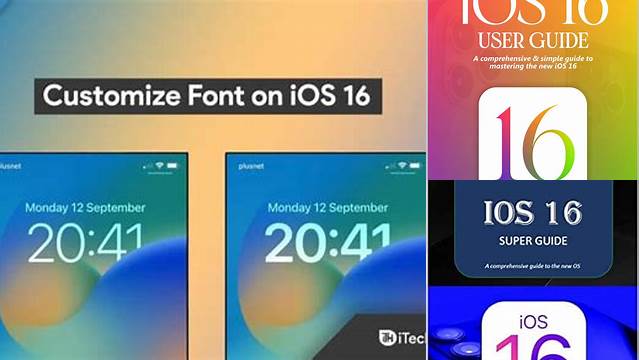
IOS 16 Fonts: Customize Your IPhone's Text
Hey guys! Ever wondered how to jazz up your iPhone's look? One of the coolest ways is by tweaking the fonts. With iOS 16, Apple gave us even more control over our devices, including some neat font options. So, let's dive into the world of fonts for iOS 16 and see how you can make your iPhone truly yours! This guide will cover everything from system-wide changes to app-specific customizations, ensuring you know all the tricks to personalize your font experience. Get ready to unleash your inner designer!
Changing the System Font on iOS 16
Unfortunately, iOS 16 doesn't offer a direct, built-in way to change the system-wide font like you can on Android. Bummer, right? But don't lose hope! There are still some workarounds and settings that influence the overall look and feel of text across your device. We'll explore these options so you can make the most of what Apple gives us. The fonts for iOS 16, while limited in direct system-wide customization, can still be altered in various ways. For example, you can adjust the text size and boldness, which affects readability and visual appeal. To access these settings, go to Settings > Accessibility > Display & Text Size. Here, you'll find options to make text bolder, increase contrast, reduce transparency, and even adjust the color filters. These settings, while not changing the font type itself, significantly impact how text appears throughout your iOS 16 experience. By experimenting with these accessibility features, you can create a more comfortable and visually appealing environment tailored to your preferences. Remember, while a complete font overhaul isn't possible without jailbreaking, these tweaks offer a surprising amount of customization. Let’s explore more options below to enhance your font experience on iOS 16.
Adjusting Text Size and Boldness
One of the easiest ways to improve readability and change the appearance of fonts for iOS 16 is by adjusting the text size and boldness. Apple provides straightforward settings to make these tweaks. To access these settings, navigate to Settings > Display & Brightness > Text Size. Here, you'll find a slider that allows you to increase or decrease the text size according to your preference. This is particularly useful for those who find the default text size too small or too large. Additionally, you can enable the Bold Text option by going to Settings > Accessibility > Display & Text Size and toggling the “Bold Text” switch. This will make all the text on your device appear bolder, which can significantly improve readability, especially for individuals with visual impairments. Experimenting with these settings can greatly enhance your overall user experience. The combination of adjusted text size and boldness can make reading articles, browsing the web, and using apps much more comfortable. It’s a simple yet effective way to personalize your device and make it more accessible. Remember, these settings apply system-wide, so you'll see the changes in most apps and menus. By fine-tuning these options, you can optimize the fonts for iOS 16 to suit your specific needs and preferences. Don’t hesitate to play around with different combinations to find what works best for you!
Using Accessibility Features for Better Readability
Apple's accessibility features are a goldmine for customizing how fonts for iOS 16 appear on your device. These features aren't just for users with disabilities; they can benefit anyone looking to improve readability and visual comfort. One particularly useful feature is Reduce Transparency, found under Settings > Accessibility > Display & Text Size. Enabling this option reduces the transparency and blur effects, making text and UI elements more distinct and easier to read. Another great tool is Increase Contrast, which enhances the color contrast between text and background. This can be especially helpful in apps with poor color schemes or low contrast ratios. Furthermore, you can explore Color Filters to adjust the color palette of your screen. This can be beneficial for individuals with color blindness or those who find certain colors straining on their eyes. To access Color Filters, go to Settings > Accessibility > Display & Text Size > Color Filters. Here, you can choose from various preset filters or create a custom filter to suit your specific needs. These accessibility features offer a surprising degree of control over how fonts for iOS 16 are displayed, allowing you to create a more comfortable and accessible user experience. By experimenting with these settings, you can significantly improve readability and reduce eye strain. Remember, the goal is to find a configuration that works best for you, so don't be afraid to try different combinations and settings. Customizing these options will make using your iPhone a lot easier and more enjoyable.
Exploring App-Specific Font Settings
While system-wide font changes are limited, many apps offer their own font settings, giving you more control over the text you see within those apps. This is where you can really personalize your reading experience. For example, apps like Kindle, iBooks, and many news readers allow you to change the font type, size, and even the background color. To find these settings, look for an “Appearance” or “Reading Settings” section within the app's menu. In these settings, you'll often find a variety of font options to choose from, including popular fonts like Times New Roman, Arial, and more specialized fonts designed for readability. You can also adjust the line spacing, margins, and other formatting options to create a comfortable reading environment. This is a great way to optimize the fonts for iOS 16 within your favorite apps. By taking advantage of these app-specific settings, you can customize the text to your liking and make reading a more enjoyable experience. Remember, each app is different, so the location of these settings may vary. But with a little exploration, you can usually find them without too much trouble. Don’t underestimate the power of these in-app settings; they can significantly enhance your overall user experience. Keep an eye out for apps that offer extensive font customization options, as they provide the most flexibility in tailoring the text to your preferences. Customizing fonts for iOS 16 this way ensures your reading pleasure.
Using Third-Party Apps for Font Customization (Caveats)
Okay, so here's the deal: While iOS is pretty locked down, some third-party apps claim to offer font customization. However, it's crucial to proceed with caution. Many of these apps require you to install custom keyboards or use other workarounds that can compromise your security and privacy. Plus, they often don't work as advertised, leading to frustration and wasted time. It's essential to read reviews and do your research before installing any third-party app that promises to change fonts for iOS 16. Be wary of apps that ask for excessive permissions or have a history of security vulnerabilities. In most cases, the limited customization options offered by these apps aren't worth the risk. Instead, focus on the built-in accessibility features and app-specific settings we discussed earlier. These options are safer, more reliable, and often provide a better overall experience. While the temptation to completely overhaul your system font may be strong, it's important to prioritize your security and privacy. Stick to trusted sources and avoid apps that seem too good to be true. Remember, Apple designed iOS to be secure and stable, and tampering with the system can lead to unexpected issues. Therefore, exercise caution and make informed decisions when considering third-party font customization apps. Always prioritize your safety when altering fonts for iOS 16.
Jailbreaking and Font Customization: Is It Worth It?
Jailbreaking your iPhone gives you complete control over your device, including the ability to change the system-wide font. However, it comes with significant risks. Jailbreaking voids your warranty, makes your device more vulnerable to malware, and can cause instability and other issues. Plus, it's a complex process that requires technical expertise. While the idea of completely customizing fonts for iOS 16 might be tempting, it's generally not worth the risks associated with jailbreaking. The potential downsides far outweigh the benefits, especially considering the alternative customization options available through accessibility features and app-specific settings. Unless you're a very experienced user who understands the risks involved, it's best to avoid jailbreaking your iPhone. There are simply too many potential problems that can arise, and you could end up bricking your device. Instead, focus on the safe and supported methods of customizing your font experience. Apple has made significant improvements to accessibility features in recent years, providing a range of options for improving readability and visual comfort. These features, combined with app-specific font settings, offer a reasonable level of customization without compromising your device's security or stability. Remember, the goal is to enjoy your iPhone without putting it at risk. Considering the consequences of jailbreaking when altering fonts for iOS 16 is crucial.
Best Font Choices for Readability on iOS 16
When it comes to choosing fonts for iOS 16 within apps that allow customization, readability should be your top priority. Some fonts are simply better suited for reading long blocks of text than others. Generally, sans-serif fonts like Helvetica, Arial, and Open Sans are considered highly readable due to their clean and simple design. Serif fonts like Times New Roman and Georgia can also be good choices, but they may not be as easy to read on smaller screens. Experiment with different fonts to see what works best for you. Consider factors like x-height (the height of lowercase letters), kerning (the spacing between letters), and leading (the spacing between lines). A font with a larger x-height, generous kerning, and ample leading will generally be more readable. Also, pay attention to the font's weight (boldness). A slightly bolder font can be easier to read, especially for individuals with visual impairments. Ultimately, the best font choice is a matter of personal preference. What works well for one person may not work as well for another. So, don't be afraid to try different fonts and experiment with various settings until you find a combination that suits your needs. The right font can make a big difference in your reading experience, so it's worth taking the time to find one that you love. Remember, prioritizing readability ensures that altering fonts for iOS 16 enhances your experience.
How Font Size Affects User Experience
The size of the fonts for iOS 16 significantly impacts user experience. Too small, and you'll strain your eyes; too large, and you'll see less content on the screen, requiring more scrolling. Finding the right balance is key. Apple provides a convenient text size slider in Settings > Display & Brightness > Text Size, allowing you to adjust the text size to your liking. Consider your screen size and viewing distance when choosing a font size. On smaller iPhones, a slightly smaller font size may be necessary to maximize the amount of content you can see. On larger iPhones or iPads, you may be able to comfortably use a larger font size. Also, think about the apps you use most often. Some apps may display text differently, so you may need to adjust the font size accordingly. For example, you might prefer a slightly larger font size in your email app than in your news reader app. Remember, the goal is to find a font size that is comfortable and easy to read without sacrificing too much screen real estate. Experiment with different sizes and see what works best for you in various apps and scenarios. Don’t hesitate to tweak the settings until you find the perfect balance. Remember, optimizing user experience means carefully considering fonts for iOS 16.
Font Weight and Its Impact on Readability
Font weight, or the thickness of the fonts for iOS 16, plays a crucial role in readability. A font that is too light can be difficult to read, especially for individuals with visual impairments or in low-light conditions. Conversely, a font that is too bold can appear heavy and overwhelming. Finding the right font weight is essential for creating a comfortable reading experience. Apple provides a Bold Text option in Settings > Accessibility > Display & Text Size, allowing you to make all the text on your device bolder. This can be a helpful option for those who find the default font weight too light. However, keep in mind that enabling Bold Text will affect all the text on your device, so it may not be suitable for everyone. Within apps that offer font customization, you may also find options to adjust the font weight. Experiment with different weights to see what works best for you. A slightly bolder font weight can improve readability without making the text appear too heavy. Pay attention to how the font weight interacts with the font size and other settings. A larger font size may require a slightly lighter font weight to maintain readability. Similarly, a smaller font size may benefit from a slightly bolder font weight. Remember, the goal is to find a combination that is comfortable and easy to read for extended periods. Careful consideration of font weight ensures optimal readability when considering fonts for iOS 16.
Line Spacing and Readability Considerations
Line spacing, also known as leading, is the vertical space between lines of text. It's a critical factor in readability, especially for long blocks of text. Insufficient line spacing can make text appear cramped and difficult to read, while excessive line spacing can make it harder to follow the flow of the text. Optimal line spacing allows the eye to easily move from one line to the next without feeling strained or lost. Unfortunately, iOS doesn't offer a system-wide setting to adjust line spacing. However, many apps, particularly those designed for reading, provide line spacing options within their settings. Look for these options in apps like Kindle, iBooks, and news readers. The ideal line spacing depends on the font size, font weight, and font type. Generally, larger font sizes require more line spacing, while smaller font sizes may benefit from less line spacing. Similarly, bolder fonts may require more line spacing to prevent the text from appearing too dense. Experiment with different line spacing values to see what works best for you. A good starting point is to set the line spacing to around 1.5 times the font size. Adjust from there until you find a setting that is comfortable and easy to read. Paying attention to line spacing ensures that the fonts for iOS 16 are easy on the eyes.
Kerning and Letter Spacing: Fine-Tuning Text Appearance
Kerning and letter spacing refer to the horizontal space between individual letters and characters in text. These subtle adjustments can significantly impact the overall appearance and readability of fonts for iOS 16. Kerning specifically addresses the space between certain letter pairs that can appear too close or too far apart due to their shapes (e.g., AV, WA). Letter spacing, on the other hand, adjusts the spacing uniformly between all letters in a word or phrase. While iOS doesn't offer system-wide controls for kerning or letter spacing, some advanced text editors and design apps may provide these options. For most users, the default kerning and letter spacing settings in iOS are sufficient. However, if you're working with typography for graphic design or other specialized purposes, you may need to use third-party apps to fine-tune these settings. Keep in mind that excessive adjustments to kerning or letter spacing can negatively impact readability. Too little space between letters can make the text appear cramped and difficult to decipher, while too much space can make the text look disjointed and unprofessional. Use these settings sparingly and only when necessary to address specific issues with the appearance of the text. If you're unsure about how to adjust kerning or letter spacing, it's best to consult with a professional designer or typographer. They can provide guidance and help you achieve the desired look without compromising readability. Optimizing text appearance requires attention to detail when choosing fonts for iOS 16.
Color Contrast and Its Impact on Text Visibility
Color contrast refers to the difference in brightness between the text and the background. It's a crucial factor in text visibility and readability, especially for individuals with visual impairments or in challenging lighting conditions. Insufficient color contrast can make text difficult or impossible to read, while excessive color contrast can cause eye strain and fatigue. Apple provides several accessibility features to adjust color contrast on iOS. The Increase Contrast option in Settings > Accessibility > Display & Text Size enhances the color contrast between text and background, making text more distinct. The Invert Colors option reverses the colors on the screen, which can be helpful for reading in low-light conditions. You can also use Color Filters to adjust the color palette of your screen. This can be beneficial for individuals with color blindness or those who find certain colors straining on their eyes. When choosing colors for text and background, aim for a high level of contrast. A good rule of thumb is to use a dark text color on a light background or vice versa. Avoid using colors that are too similar in brightness, such as light gray text on a white background. Test your color choices in different lighting conditions and on different devices to ensure that the text remains legible. Pay special attention to color contrast when designing websites or apps. Make sure that the text is easily readable on all devices and in all lighting conditions. Proper color contrast significantly enhances visibility when selecting fonts for iOS 16.
Night Mode and Its Influence on Font Perception
Night Mode, also known as Dark Mode, reverses the color scheme of your device, displaying light text on a dark background. This can reduce eye strain in low-light conditions and improve sleep quality. However, Night Mode can also affect how you perceive fonts for iOS 16. Some fonts may appear more readable in Night Mode than others. Generally, sans-serif fonts with a slightly bolder weight tend to work well in Night Mode. Avoid using fonts that are too thin or too light, as they may become difficult to read against a dark background. Pay attention to the color contrast between the text and the background in Night Mode. Make sure that the text is easily readable and doesn't blend in with the background. You may need to adjust the text color or background color to achieve optimal contrast. Experiment with different font settings and color combinations in Night Mode to see what works best for you. Consider the types of content you typically view in Night Mode. If you're primarily reading long blocks of text, choose a font that is comfortable and easy to read for extended periods. If you're primarily browsing websites or using apps with a lot of graphics, you may be able to get away with a more decorative font. Remember, the goal is to create a visual environment that is comfortable and easy on your eyes, especially in low-light conditions. Carefully considering font choices in Night Mode will optimize the viewing experience when choosing fonts for iOS 16.
Font Anti-Aliasing and Its Role in Smooth Text Rendering
Font anti-aliasing is a technique used to smooth the edges of fonts for iOS 16, making them appear less jagged and more visually appealing. It works by adding slightly blurred pixels around the edges of the characters, which creates the illusion of smoother curves and lines. iOS automatically applies font anti-aliasing to all text on the screen. However, the effectiveness of anti-aliasing can depend on the font size, font type, and screen resolution. At smaller font sizes, anti-aliasing can sometimes make text appear slightly blurry or less sharp. This is because the blurred pixels can interfere with the clarity of the characters. At larger font sizes, anti-aliasing is generally more effective at smoothing the edges of the text without sacrificing clarity. Some fonts are designed specifically to take advantage of anti-aliasing. These fonts typically have smooth, rounded edges and are optimized for display on digital screens. When choosing fonts, consider how well they will render with anti-aliasing enabled. Avoid using fonts that have sharp, angular edges or that appear pixelated at small sizes. Experiment with different font settings and screen resolutions to see how anti-aliasing affects the appearance of the text. If you find that anti-aliasing is making the text appear blurry, you may be able to disable it in some apps or operating systems. However, keep in mind that disabling anti-aliasing can make the text appear more jagged and less visually appealing. Overall, font anti-aliasing plays an important role in creating smooth and readable text on digital screens. Understanding how it works and how it affects different fonts can help you choose the best fonts for your needs. Smooth text rendering is crucial when considering fonts for iOS 16.
System-Wide Font Changes via Configuration Profiles (Advanced)
While iOS doesn't offer a direct setting to change the system-wide font, there are some advanced techniques that can be used to achieve this, such as using configuration profiles. However, this method is complex and not recommended for average users. Configuration profiles are typically used by businesses and organizations to manage device settings and configurations. They can be used to install custom fonts on iOS devices, but this requires creating and installing a profile that is specifically designed for this purpose. Creating a configuration profile requires technical expertise and specialized software. You'll need to use a tool like Apple Configurator or a third-party profile editor to create the profile and then install it on your device. Installing a configuration profile from an untrusted source can pose security risks. Make sure that you only install profiles from trusted sources, such as your employer or a reputable organization. Even if you install a profile from a trusted source, it's important to understand what settings the profile is changing. A misconfigured profile can cause unexpected problems with your device. If you're not comfortable with the technical aspects of creating and installing configuration profiles, it's best to avoid this method of changing the system-wide font. Stick to the built-in accessibility features and app-specific font settings, which are safer and easier to use. Consider the complexity before attempting system-wide changes to fonts for iOS 16.
Using Custom Fonts in Apps with Font Picker Support
Some apps offer built-in font pickers that allow you to use custom fonts that you've installed on your device. This is a great way to personalize the appearance of the text within those apps. To use custom fonts in an app with font picker support, you'll first need to install the fonts on your device. There are several ways to do this, such as using a font management app or installing a configuration profile. Once the fonts are installed, open the app that you want to use them in and look for the font picker. The font picker is typically located in the app's settings or preferences. In the font picker, you should see a list of all the fonts that are installed on your device, including the custom fonts that you've added. Select the font that you want to use and apply the changes. Keep in mind that not all apps support custom fonts. If an app doesn't have a font picker, you won't be able to use custom fonts in that app. Also, some apps may only support certain font formats, such as TrueType (TTF) or OpenType (OTF). Make sure that the fonts you're using are compatible with the app. Using custom fonts can be a fun and creative way to personalize the appearance of your favorite apps. Experiment with different fonts and see what works best for you. Check for font picker support to personalize fonts for iOS 16 within apps.
Impact of Screen Resolution on Font Clarity
The screen resolution of your iPhone or iPad can have a significant impact on font clarity. Higher resolution screens, such as those found on newer iPhones and iPads, generally display fonts more sharply and clearly than lower resolution screens. This is because higher resolution screens have more pixels per inch (PPI), which allows them to render finer details and smoother curves. On lower resolution screens, fonts can sometimes appear pixelated or jagged, especially at smaller font sizes. This is because the pixels are larger and more visible, which can make the edges of the characters appear less smooth. To improve font clarity on lower resolution screens, you can try increasing the font size or using a font that is specifically designed for display on lower resolution screens. You can also try adjusting the screen brightness and contrast to optimize the appearance of the text. When choosing fonts, consider the screen resolution of your device. If you have a higher resolution screen, you can generally use more complex and detailed fonts without sacrificing clarity. If you have a lower resolution screen, it's best to stick to simpler fonts that are easy to read. Screen resolution plays a crucial role in how well the fonts for iOS 16 are rendered.
Using Web Fonts in Safari and Other Browsers
Web fonts are fonts that are hosted on a web server and downloaded to your device when you visit a website. They allow website designers to use a wider variety of fonts than are typically available on iOS devices. Safari and other browsers on iOS support web fonts, but there are some things to keep in mind when using them. First, web fonts can take longer to load than system fonts, which can slow down the loading time of websites. To minimize the impact on loading time, website designers should optimize their web fonts and use a content delivery network (CDN) to host them. Second, web fonts can sometimes appear differently on different devices and browsers. This is because different devices and browsers may use different rendering engines and anti-aliasing techniques. To ensure that their web fonts look consistent across different devices and browsers, website designers should test their websites on a variety of devices and browsers. Third, some web fonts may not be licensed for use on mobile devices. Before using a web font on a mobile website, website designers should check the font's license to make sure that it allows for mobile use. When browsing websites on your iPhone or iPad, you may encounter web fonts that you like. Unfortunately, you can't directly install web fonts on iOS devices for use in other apps. However, you can use browser extensions or third-party apps to identify the web fonts used on a website. Web fonts expand design possibilities when choosing fonts for iOS 16 for web browsing.
Dynamic Type and Its Role in Accessibility
Dynamic Type is an accessibility feature in iOS that allows users to adjust the size of text across the system. This is particularly useful for people with visual impairments who need larger text to read comfortably. When Dynamic Type is enabled, apps that support it will automatically adjust the size of their text to match the user's preferred text size. This ensures that text is always readable, regardless of the user's visual abilities. To enable Dynamic Type, go to Settings > Accessibility > Display & Text Size > Larger Text. Here, you can use the slider to adjust the text size to your liking. You can also enable the Larger Accessibility Sizes option to further increase the maximum text size. App developers can support Dynamic Type in their apps by using the appropriate APIs. When an app supports Dynamic Type, it will automatically adjust the size of its text to match the user's preferred text size. This makes the app more accessible to users with visual impairments. Dynamic Type is an important accessibility feature that can make iOS devices easier to use for people with visual impairments. App developers should strive to support Dynamic Type in their apps to make them more accessible to all users. Accessibility is enhanced by utilizing Dynamic Type for fonts for iOS 16.
Font Management Apps for iOS: Are They Worth It?
Font management apps for iOS claim to make it easier to install and manage custom fonts on your device. However, the reality is that iOS doesn't offer a true system-wide font management feature, so these apps are often limited in what they can do. Some font management apps allow you to install custom fonts by creating configuration profiles. However, as mentioned earlier, installing configuration profiles from untrusted sources can pose security risks. Other font management apps allow you to preview fonts and organize them into collections. However, these features are often not worth the cost of the app, as you can easily preview fonts online and organize them manually. In general, font management apps for iOS are not worth the cost or the risk. The built-in accessibility features and app-specific font settings provide a safer and more reliable way to customize your font experience. If you're looking for a way to install and manage custom fonts on iOS, it's best to avoid font management apps and stick to the built-in options. A cautious approach is best when considering font management apps for fonts for iOS 16.
The Future of Font Customization on iOS
The future of font customization on iOS is uncertain. Apple has historically been restrictive when it comes to system-wide font changes, but there are signs that the company may be loosening its grip. In recent years, Apple has added more accessibility features to iOS, including Dynamic Type and the ability to adjust text size and boldness. These features give users more control over the appearance of text on their devices. It's possible that Apple will eventually allow users to change the system-wide font, but it's also possible that the company will continue to limit font customization to accessibility features and app-specific settings. One thing is certain: the demand for font customization on iOS is growing. As more and more users become aware of the benefits of custom fonts, they will continue to pressure Apple to provide more options for font customization. Whether Apple will respond to this demand remains to be seen. However, one can hope for more flexible options regarding fonts for iOS 16 in future iOS updates.
Troubleshooting Font Display Issues on iOS 16
Even with the best font choices and settings, you might occasionally run into font display issues on iOS 16. Here are some common problems and how to fix them: If text appears blurry, try adjusting the font size or enabling Bold Text in Settings > Accessibility > Display & Text Size. If text is too small, use the text size slider in Settings > Display & Brightness > Text Size to increase the font size. If text is not displaying correctly in a specific app, check the app's settings for font options or try updating the app to the latest version. If you're using a custom font that is not displaying correctly, make sure that the font is compatible with iOS 16 and that it is properly installed. If you're experiencing font display issues after installing a configuration profile, try removing the profile and restarting your device. If all else fails, try resetting your device to its factory settings. However, be sure to back up your data before doing this, as it will erase all the data on your device. By following these troubleshooting tips, you can resolve most font display issues on iOS 16. Remember to experiment with different font settings and screen resolutions to find what works best for you. Careful troubleshooting ensures the correct display of fonts for iOS 16.
Font Licensing and Legal Considerations
When using fonts for iOS 16, especially custom fonts, it's important to be aware of font licensing and legal considerations. Fonts are intellectual property, and their use is governed by copyright laws and licensing agreements. Most fonts are licensed, which means that you have to pay a fee to use them. The terms of the license agreement will specify how you can use the font. Some licenses allow you to use the font for personal use only, while others allow you to use it for commercial purposes. Some licenses also restrict the number of devices on which you can install the font. Before using a font, be sure to read the license agreement carefully to make sure that you are complying with the terms. If you're not sure whether you're allowed to use a font for a particular purpose, it's best to contact the font designer or foundry for clarification. Using a font without a proper license can result in legal penalties. There are also some free fonts available, but even these fonts may have licensing restrictions. Be sure to check the license agreement before using a free font. When using fonts in your own apps or websites, be sure to properly credit the font designer or foundry. This is a good way to show your appreciation for their work and to avoid any legal issues. Always respect font licenses when choosing fonts for iOS 16.
Optimizing Font Choices for Different iOS Devices (iPhone vs. iPad)
Choosing the right fonts for iOS 16 can depend on the device you're using. iPhones and iPads have different screen sizes and resolutions, which can affect how fonts appear. On iPhones, which have smaller screens, it's generally best to use fonts that are easy to read at smaller sizes. Sans-serif fonts like Helvetica Neue and Arial are often good choices. You may also want to increase the font size in Settings > Display & Brightness > Text Size to make the text more readable. On iPads, which have larger screens, you have more flexibility when it comes to font choices. You can use more decorative fonts or fonts with more intricate details. However, it's still important to choose fonts that are easy to read, especially for long blocks of text. Consider the viewing distance when choosing fonts for iPads. If you're holding the iPad close to your face, you may be able to use smaller fonts. If you're viewing the iPad from a distance, you'll need to use larger fonts. Also, consider the type of content you're viewing. If you're reading books or articles, you'll want to use fonts that are comfortable to read for extended periods. If you're browsing the web or using apps with a lot of graphics, you can use more decorative fonts. Optimize your font choices based on the specific iOS device for best results with fonts for iOS 16.
The Psychology of Fonts: How They Affect Perception
Fonts aren't just about readability; they also evoke emotions and influence perception. The psychology of fonts explores how different typefaces can impact how we interpret and react to written information. Serif fonts, with their small decorative strokes, often convey a sense of tradition, authority, and elegance. They're commonly used in formal documents, books, and newspapers. Sans-serif fonts, on the other hand, are more modern and minimalist. They're often associated with clarity, simplicity, and efficiency. They're commonly used in websites, apps, and marketing materials. Script fonts mimic handwriting and can convey a sense of creativity, personality, and informality. They're often used in invitations, greeting cards, and logos. Decorative fonts are more experimental and expressive. They can be used to create a unique and eye-catching design. However, they should be used sparingly, as they can be difficult to read. When choosing fonts, consider the message you're trying to convey and the audience you're trying to reach. A font that is appropriate for a formal business document may not be appropriate for a fun and playful website. Also, consider the cultural connotations of different fonts. Some fonts may be associated with certain cultures or time periods. Understanding the psychology of fonts can help you choose the best fonts for your needs and create a more effective visual communication. The right typeface can greatly enhance how fonts for iOS 16 are perceived.
Advanced Typography Techniques for iOS Designers
For iOS designers, mastering advanced typography techniques is essential for creating visually appealing and user-friendly interfaces. These techniques go beyond simply choosing a font; they involve careful consideration of factors like hierarchy, alignment, contrast, and spacing. Establishing a clear visual hierarchy is crucial for guiding users through the content. Use different font sizes, weights, and styles to emphasize important information and create a clear distinction between headings, subheadings, and body text. Proper alignment is essential for creating a clean and organized layout. Avoid using too many different alignment styles, as this can make the design look cluttered and confusing. Use contrast to make text stand out from the background. A good rule of thumb is to use a dark text color on a light background or vice versa. Pay attention to spacing, both between letters and between lines. Too little spacing can make the text appear cramped and difficult to read, while too much spacing can make the text look disjointed. Use kerning and tracking to fine-tune the spacing between individual letters. Consider using ligatures, which are special characters that combine two or more letters into a single glyph. Ligatures can improve the appearance of certain letter combinations and make the text more readable. Mastering these advanced typography techniques will elevate your iOS designs and create a more engaging and user-friendly experience. Enhance your design skills and better use fonts for iOS 16 with these typography techniques.
Conclusion: Mastering Fonts on iOS 16 for Optimal User Experience
So there you have it, guys! While iOS 16 doesn't give us carte blanche to swap out system fonts like we might want, there are still plenty of ways to tweak and optimize the text on your device. From accessibility settings to app-specific options, you can customize your font experience to be more readable, comfortable, and visually appealing. Remember to experiment with different settings, prioritize readability, and be cautious when considering third-party apps. By following these tips, you can master fonts for iOS 16 and create an optimal user experience on your iPhone or iPad. Happy tweaking!